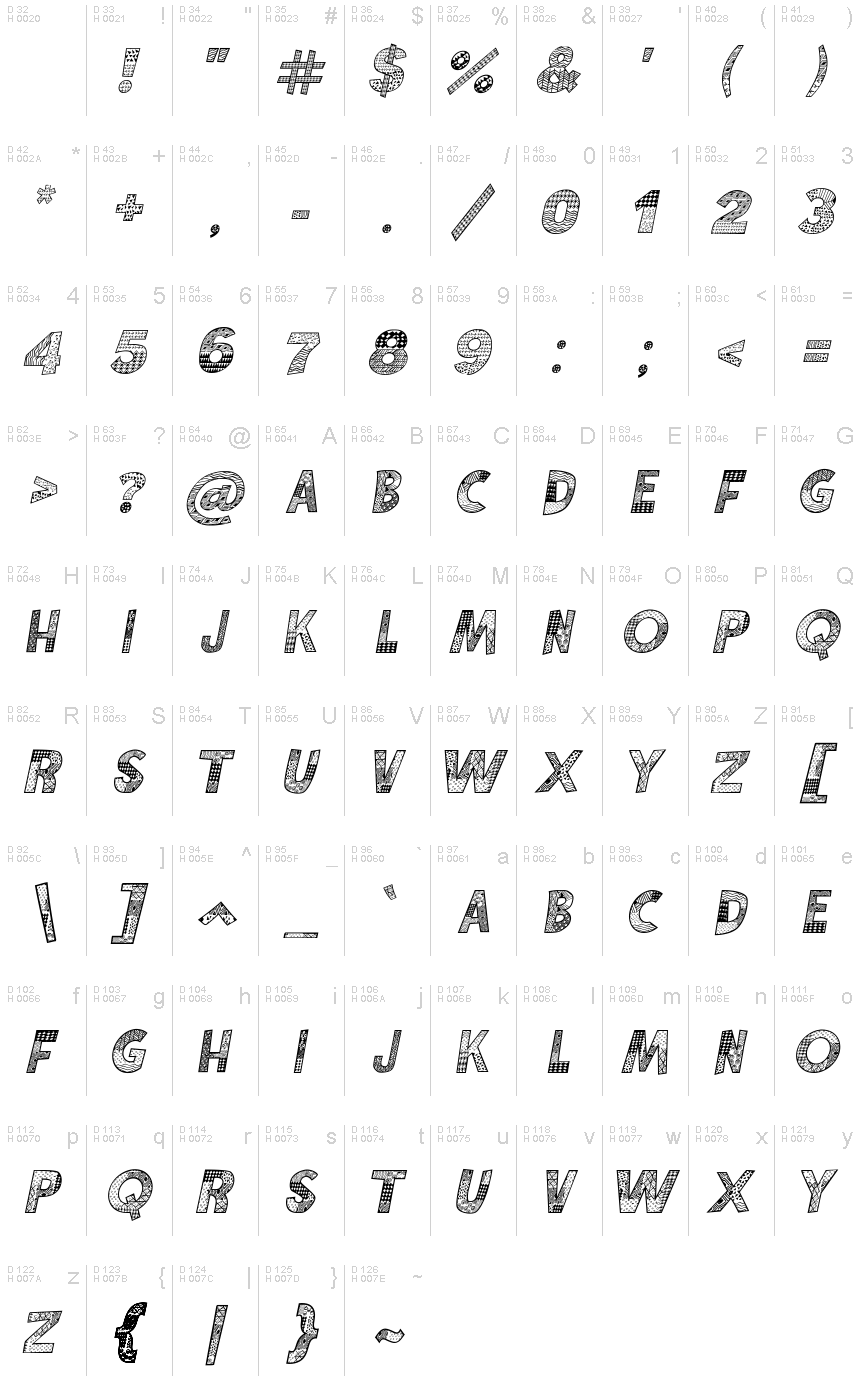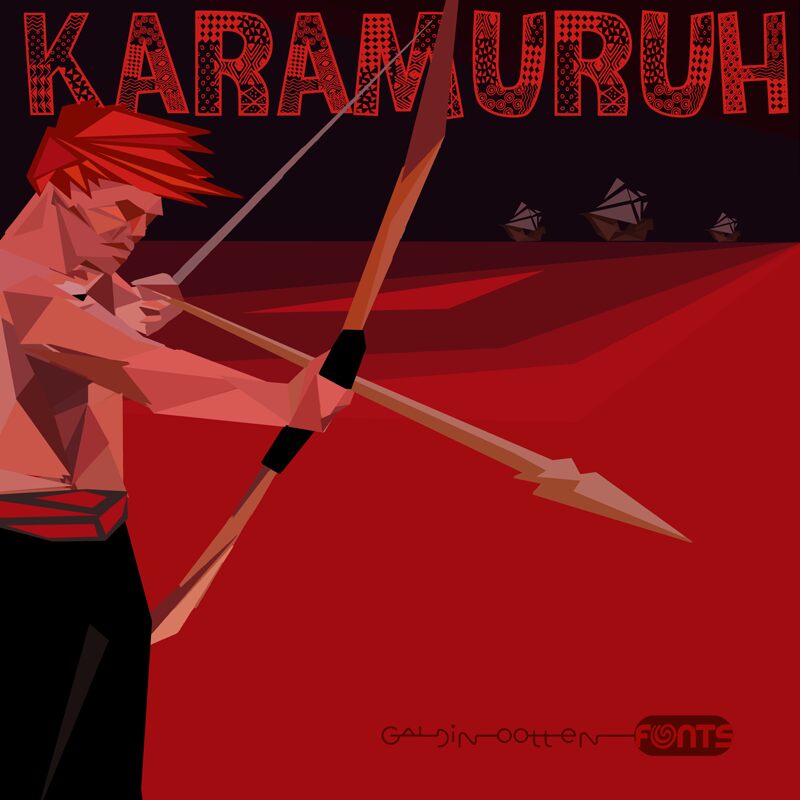
Karamuruh Italic
Karamuruh Italic font by Galdino Otten Fonts is a decorative display typeface with beautiful intricacy. It’s the decorative letter ends combined with the delicate patterns inside each character that add value to this bold presence. The letter arrangement as a whole presents itself as an artistic and modern font that works for an array of creative applications.
This free display font is suitable for design projects like posters, banners, headings, branding designs, graphics in advertisements, visual writing on websites and apps, typographic logo creation, personalized gifts and products decorations as well as signature designs.